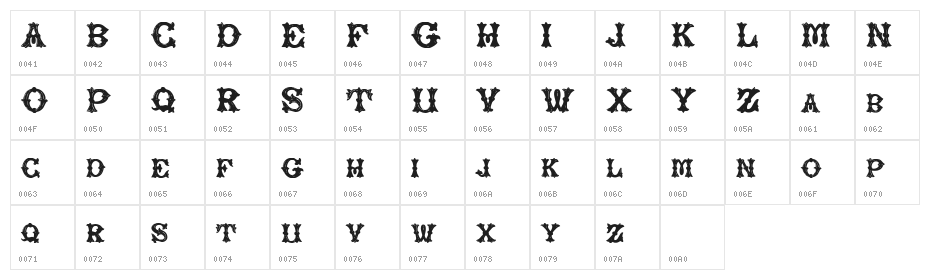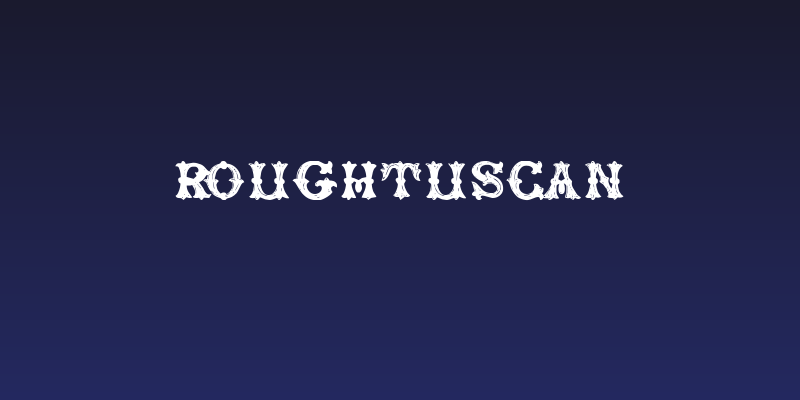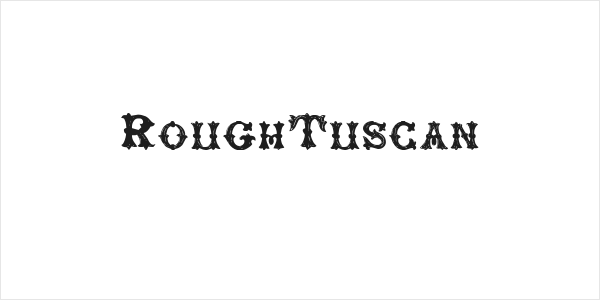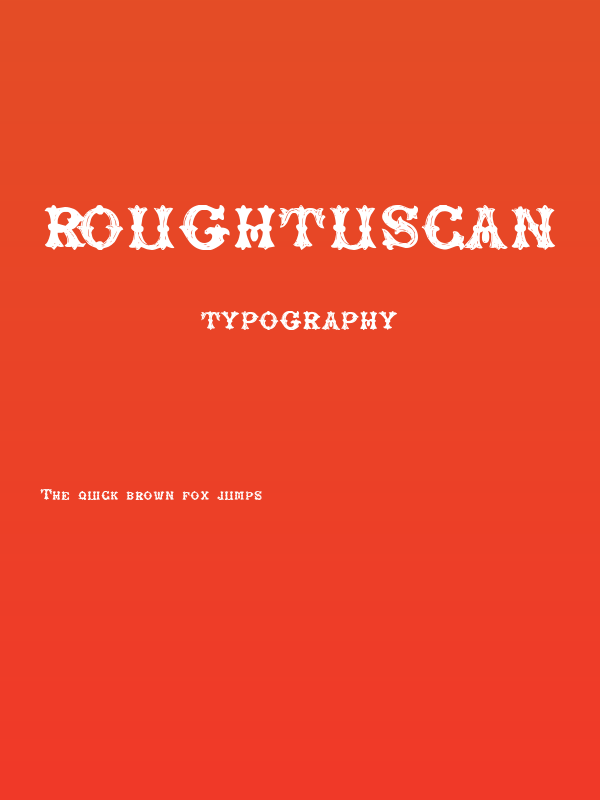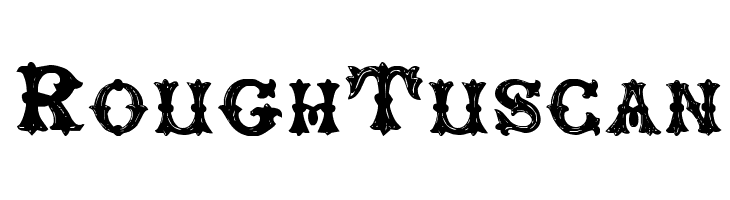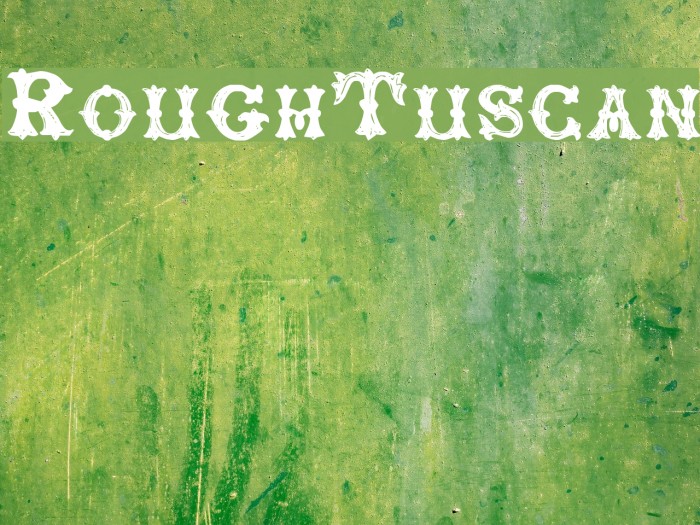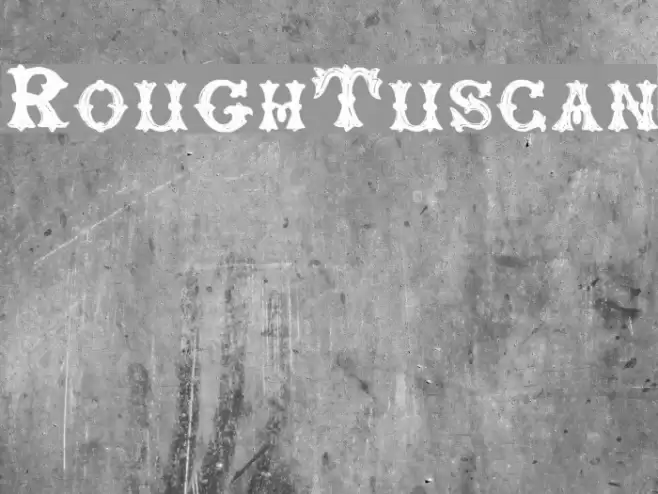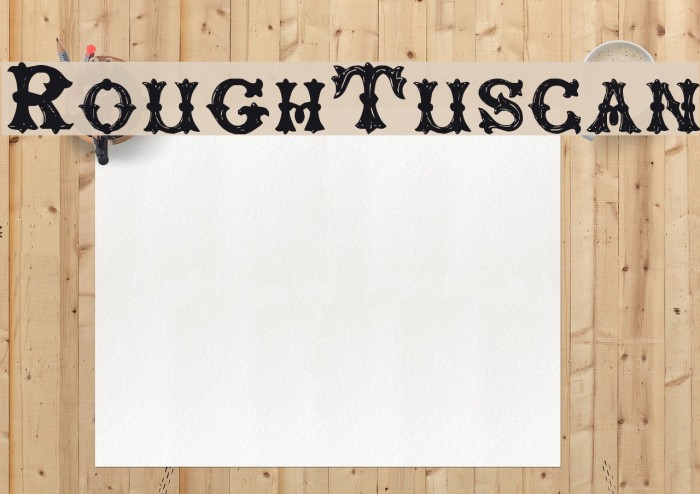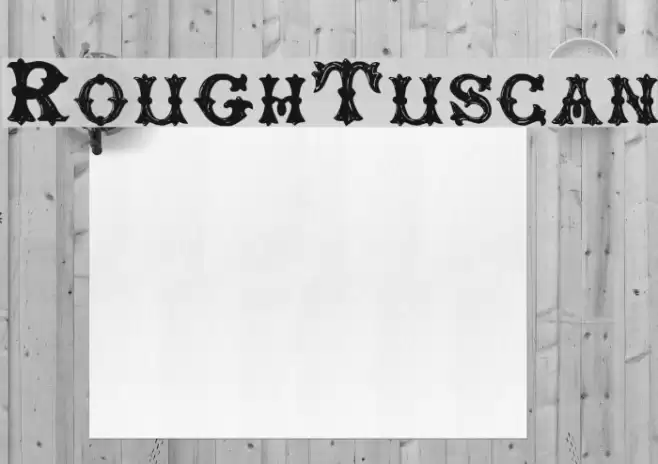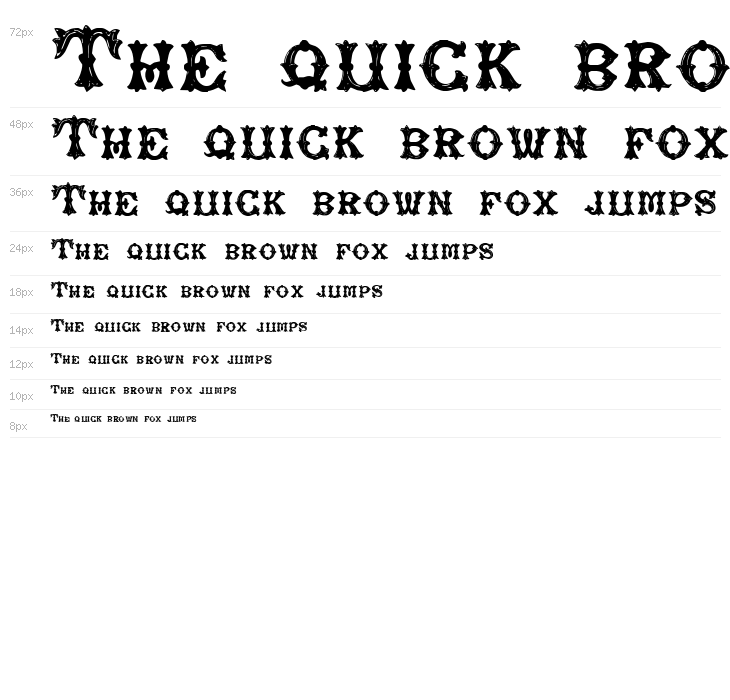
RoughTuscan Font
RoughTuscan Description
This font features an intricate and decorative design, characterized by ornate and elaborate details that give it a vintage and artistic appearance. The letters are embellished with flourishes and embellishments, creating a sense of elegance and grandeur. The overall style is reminiscent of historical or classical typefaces, often used in contexts where a dramatic and eye-catching effect is desired. The bold strokes and complex patterns make it suitable for display purposes, where the font can be appreciated for its artistic qualities.
| Overall Style | Vintage |
| Proposed Projects | Ideal for use in vintage-themed posters, theatrical event invitations, or branding for luxury products. |